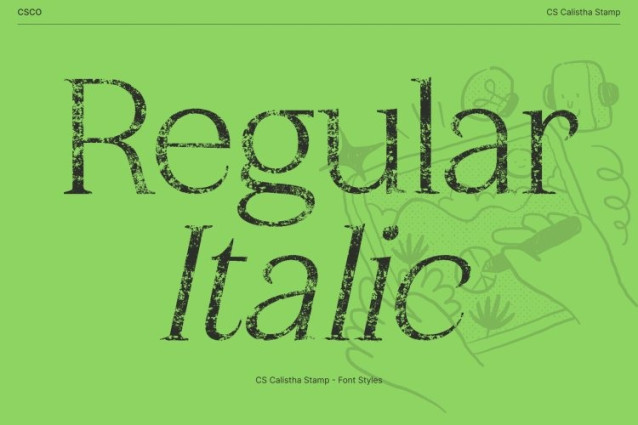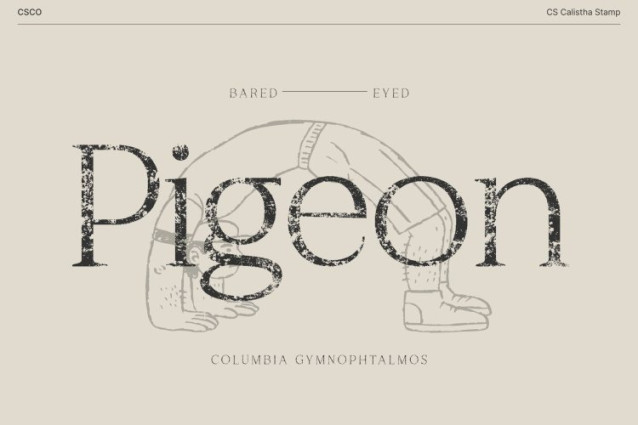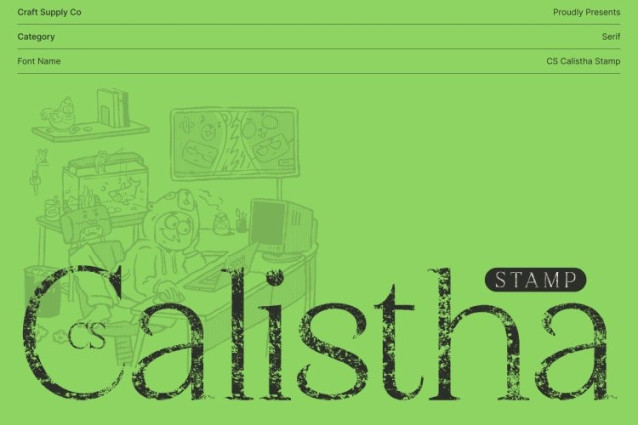
CS Calistha Stamp Font
CS Calistha Stamp Font This is an elegant serif font designed to embody refinement and beauty through graceful curves and flowing letterforms. Its sophisticated structure reflects timeless elegance, combining modern precision with classic serif charm. Each character is carefully shaped to create a harmonious balance between softness and clarity, delivering a confident and polished appearance.
Refined Curves with a Stamped Artistic Texture
The beauty of lies in its smooth transitions and refined shapes, enhanced by a stamped texture that introduces subtle roughness and organic imperfection. This stamped effect adds artistic depth and tactile character, preventing the font from feeling overly pristine while preserving its luxurious flow. The result is a serif that feels elegant yet authentic, expressive yet controlled.
Luxurious Presence with Natural Rhythm
Its flowing curves create a gentle rhythm that enhances readability while maintaining an exclusive aesthetic. The stamped finish adds warmth and visual richness, giving the font a handcrafted, slightly vintage personality that elevates designs with depth and character perfect for projects that value elegance with individuality.
Perfect for Editorials, Branding, and Premium Design
This font excels in luxury branding, editorial layouts, high-end packaging, posters, and refined visual identities. Its balanced proportions and textured elegance transform typography into a statement of taste, professionalism, and artistic sophistication.